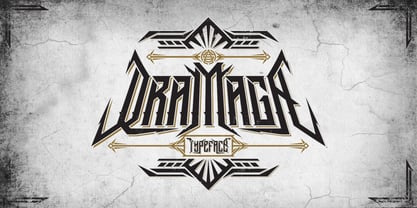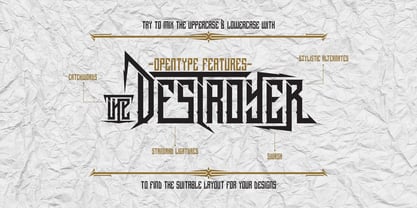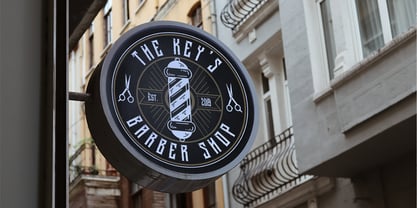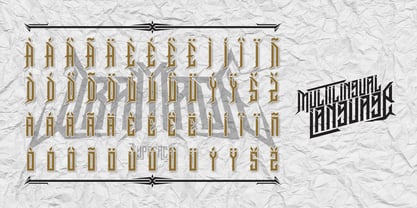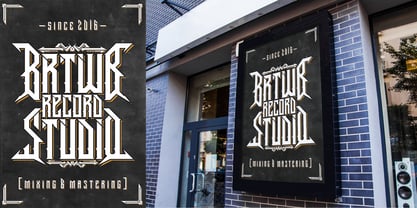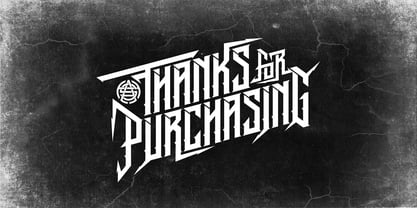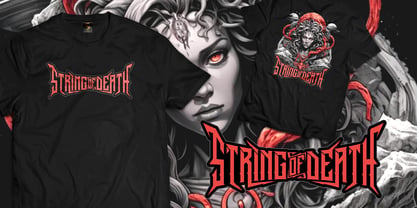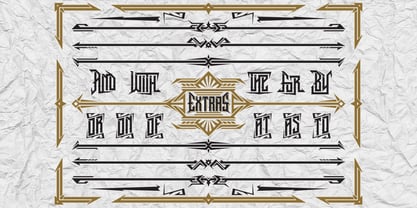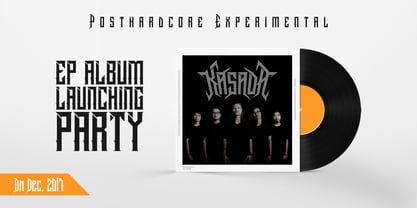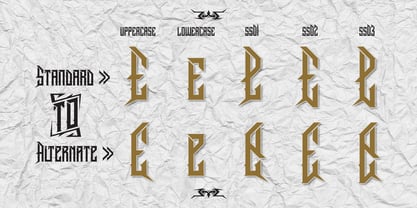
Dramaga
The Dramaga Font Family was designed by Nuryana Fajartama and published by HengzArt Studio. Dramaga contains 1 styles. More about this family
Dramaga, a font richly infused with the electrifying spirit of Posthardcore culture, is your key to stunning literary aesthetics. Carefully blend uppercase and lowercase letters, complemented by standard ligatures and swashes, and watch as your content transforms into a visually stunning masterpiece. With Dramaga, every word you craft is an awe-inspiring blend of design and culture, guaranteed to captivate your audience.
It's a good choose to create ghotic design, branding, logos, product packaging, cover album, invitation, qoutes, t-shirt, banner, tatto, label poster etc.
Feature:
- Character Set A-Z (Uppercase & Lowercase)
- Numerals & Punctuations
- Accents (Multilingual characters)
- Stylistic Alternates
- Standard Ligature
- Swash
- ss01, ss02, ss03